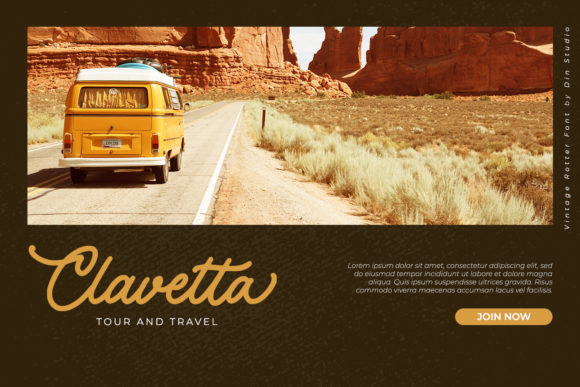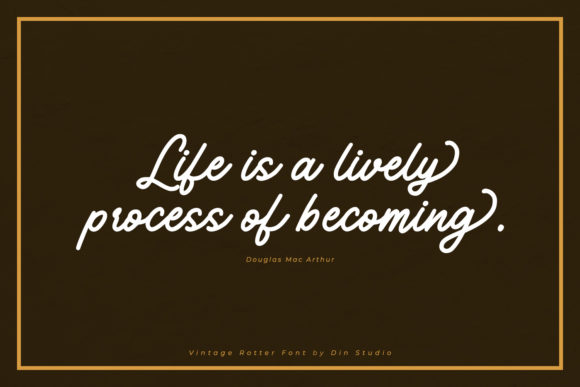
Vintage Rotter Font
db-ku.com - Script & Handwritten -- Vintage Rotter is a flowing handwritten font, described by an elegant touch, perfect for your favorite projects. Fall in love with its incredibly distinct and timeless style and use it to create spectacular designs! This font is PUA encoded which means you can access all of the glyphs and swashes with ease!